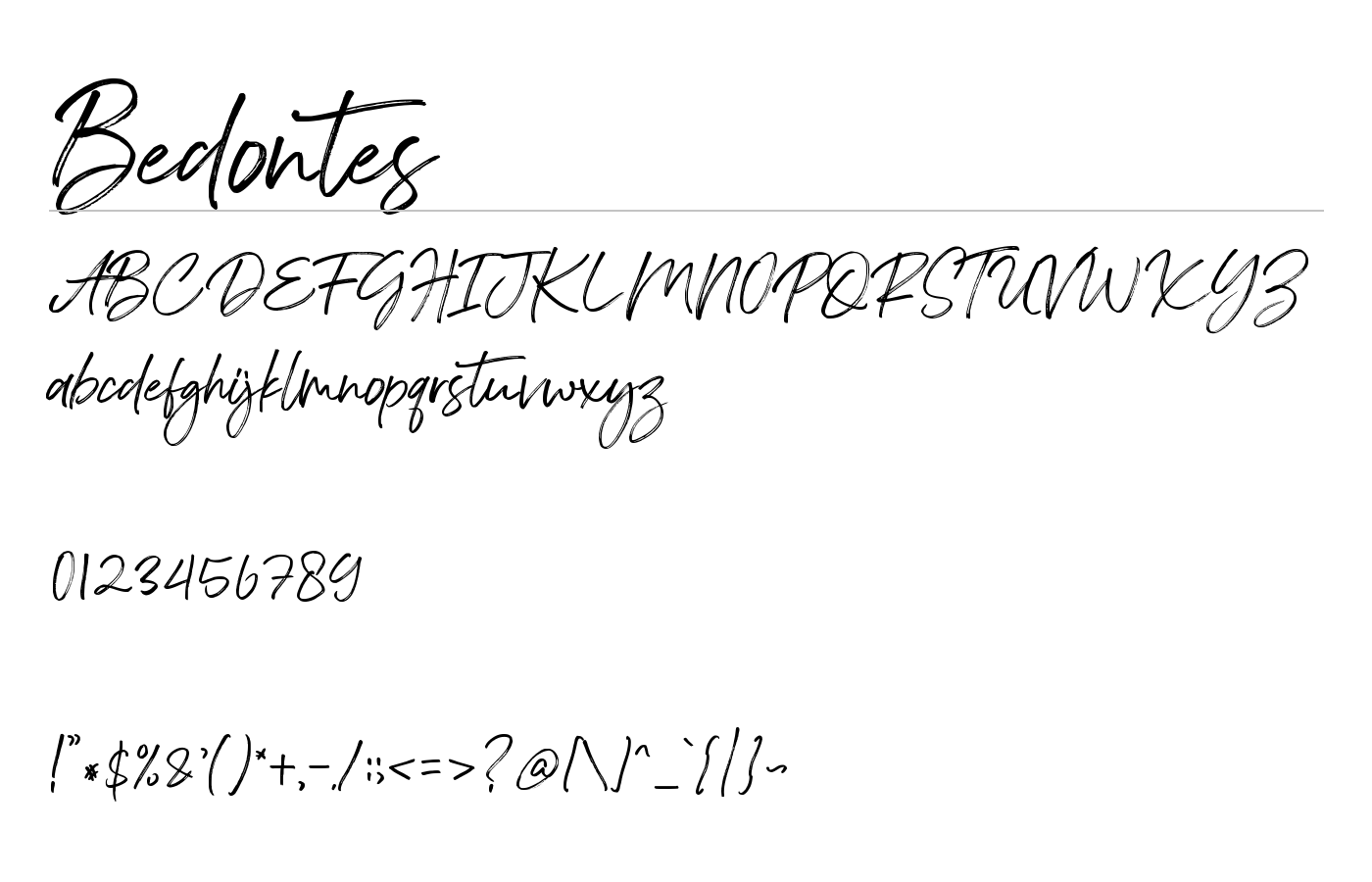
Bedontes is an elegant and lively script font that mimics natural handwriting with its fluid, brush-like strokes and varying line thickness. Its slender, slightly slanted letterforms and high x-height create a sense of casual sophistication, making it ideal for stylish branding, invitations, and creative headlines that need a personal, artistic touch. This font works best where a warm, approachable yet refined feel is desired.
Bedontes Font
About Bedontes Font
| Font family | Bedontes Font |
| Designer | AMIN MARYONO 2020 |